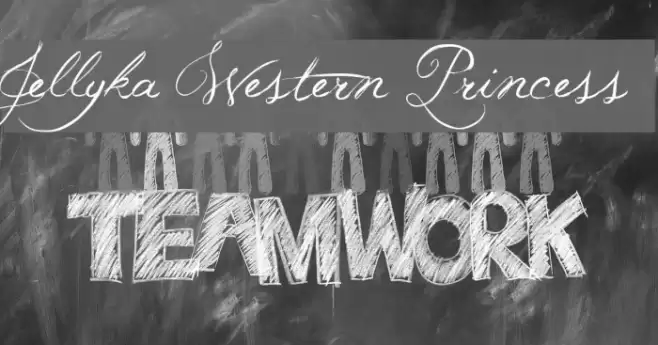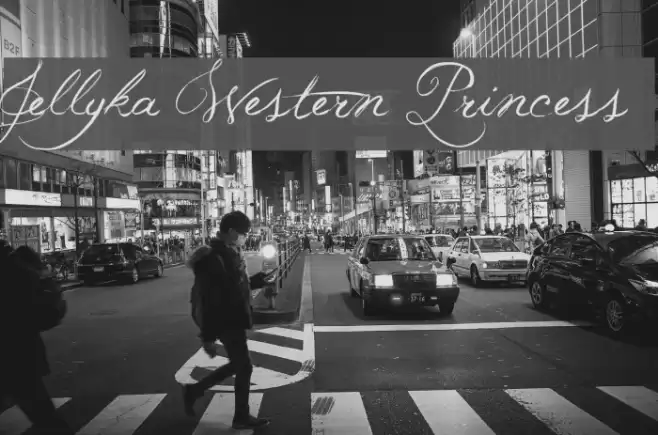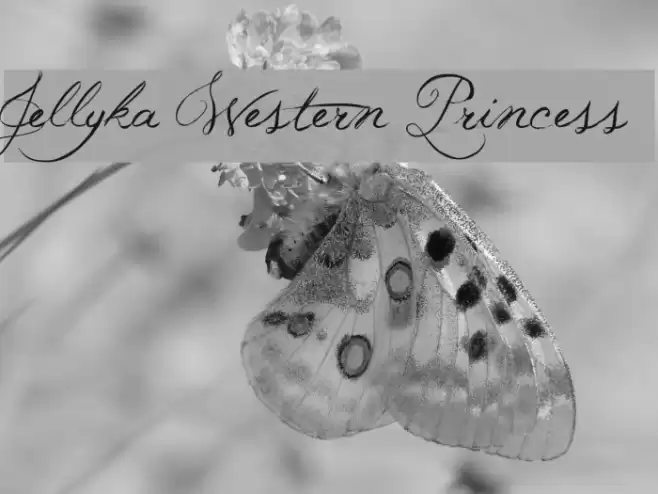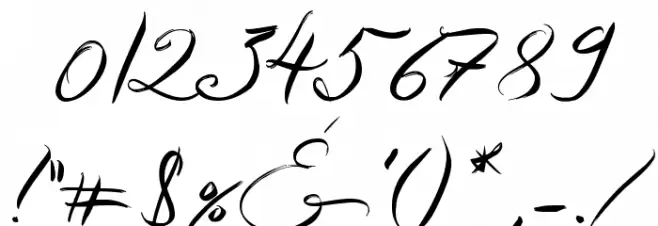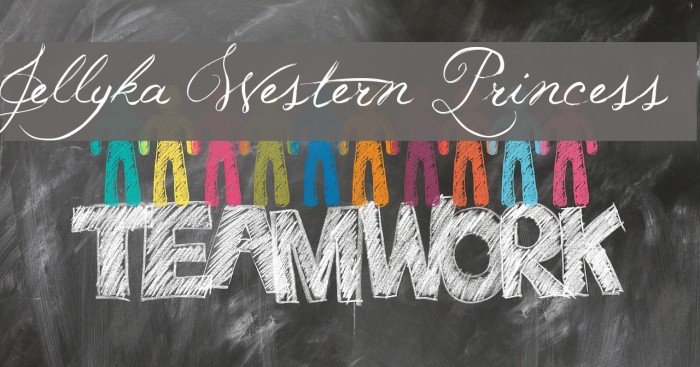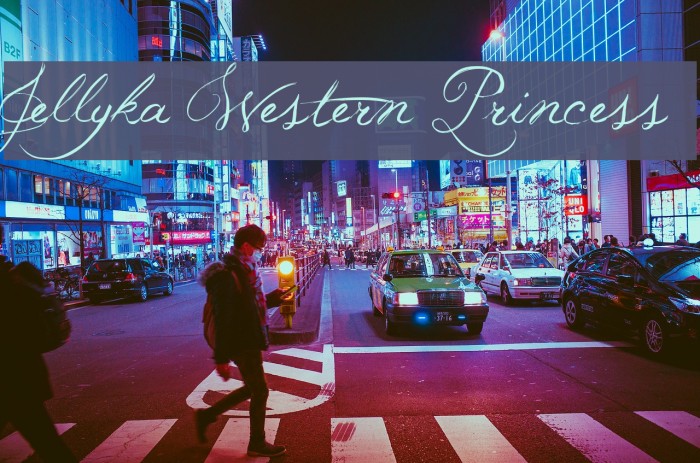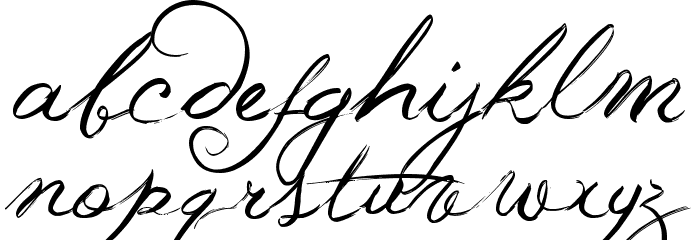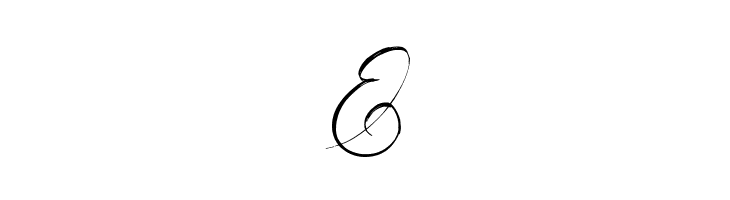
Jellyka Western Princess Font
Jellyka Western Princess Description
This font exudes a whimsical and elegant charm, characterized by its flowing, cursive script that mimics the fluidity of handwritten calligraphy. The letters are intricately designed with delicate loops and swirls, giving it a romantic and artistic flair. The uppercase letters are particularly ornate, with elaborate flourishes that extend beyond the baseline and cap height, while the lowercase letters maintain a more subtle yet equally graceful appearance. The numbers and special characters are consistent with the overall style, featuring similar decorative elements. This font is ideal for projects that require a touch of sophistication and creativity.
A whimsical, cursive script font with elegant loops and swirls from Calligraphic fonts.
- Font: Jellyka Western Princess